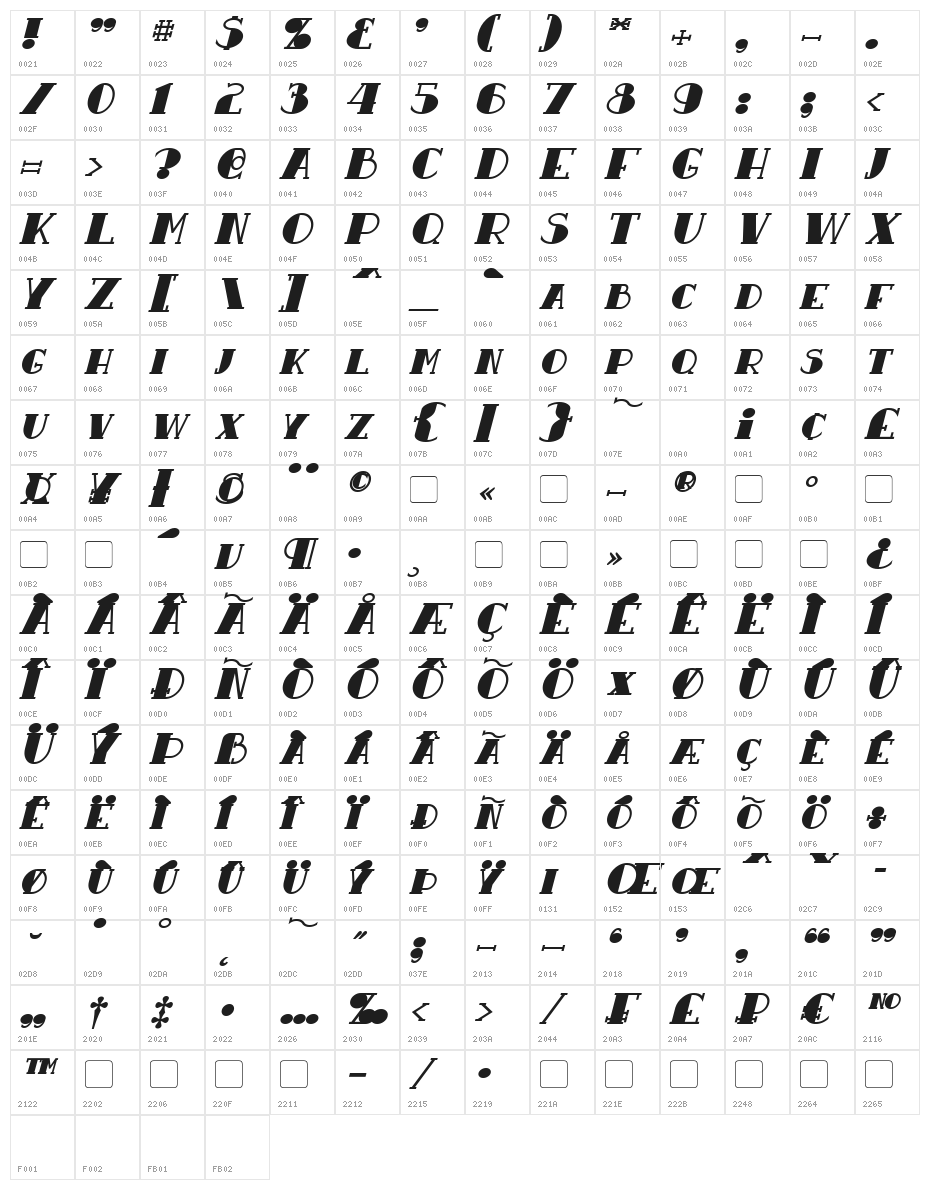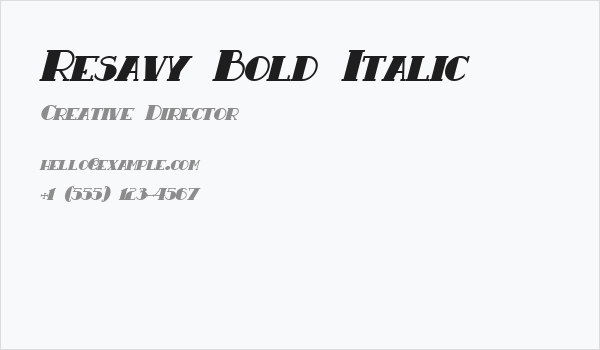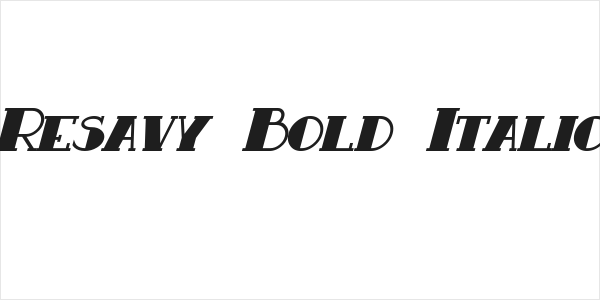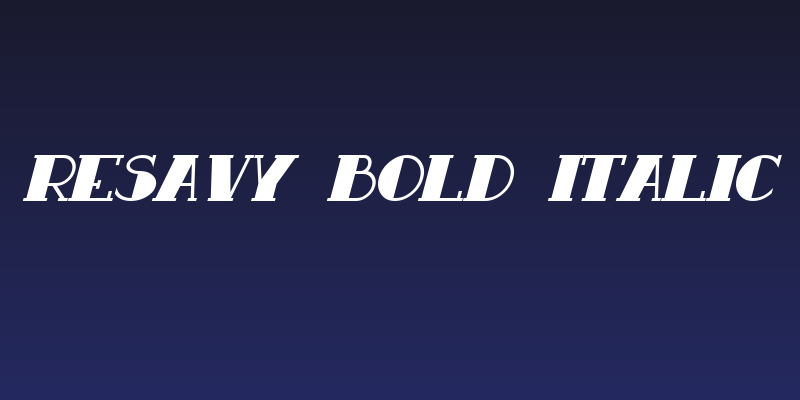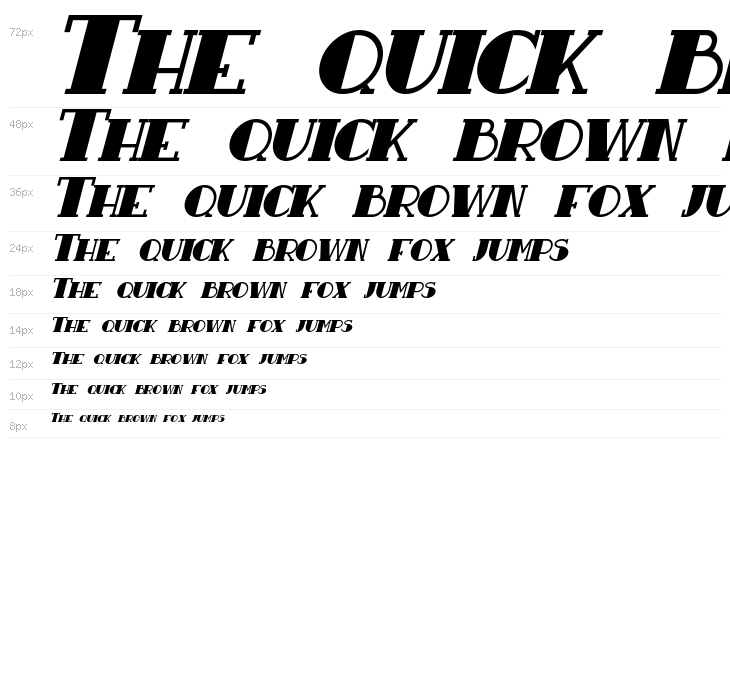
Resavy Bold Italic Font
Resavy Bold Italic Description
This font exhibits a bold and italicized style, characterized by its strong, dynamic slant and thick strokes. The uppercase and lowercase letters maintain a consistent angle, giving it a cohesive and energetic appearance. The numbers and special characters follow the same bold and italicized design, ensuring uniformity across all glyphs. The font's high contrast between thick and thin strokes adds to its dramatic and impactful presence, making it suitable for attention-grabbing designs.
| Proposed Projects | Ideal for branding, headlines, posters, and any design requiring a bold statement. |